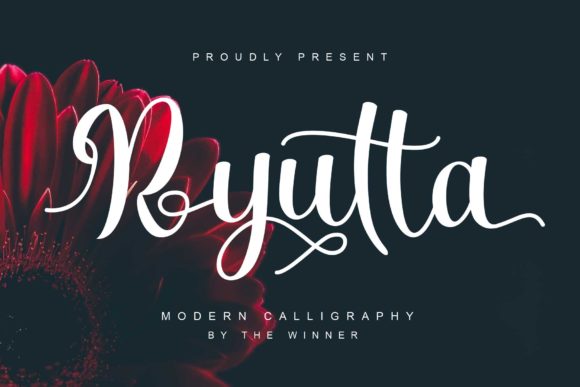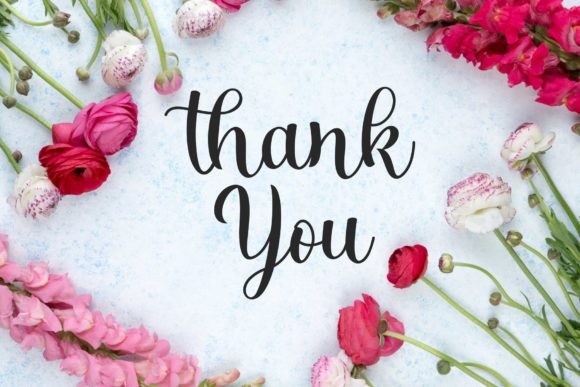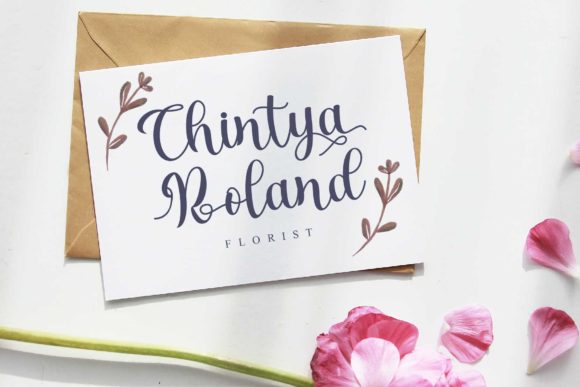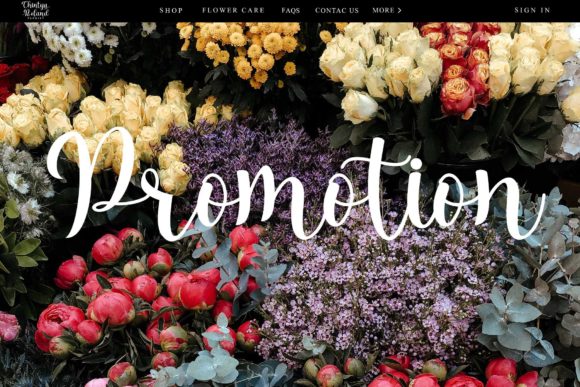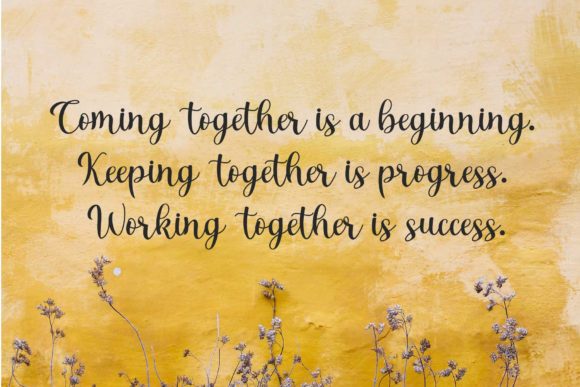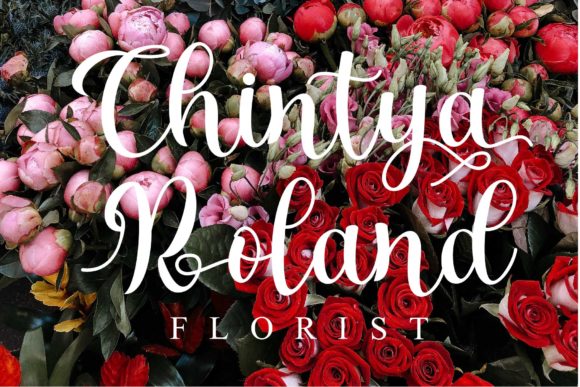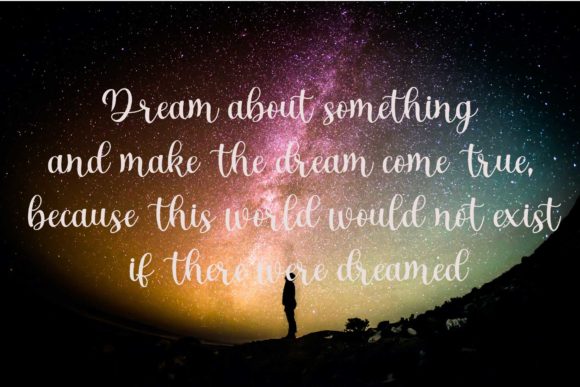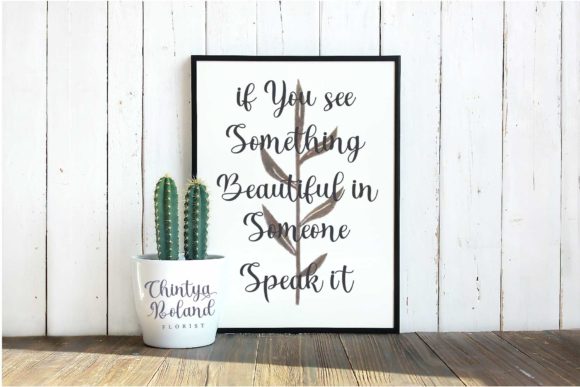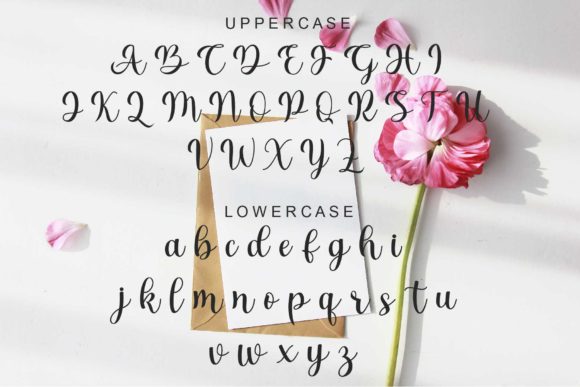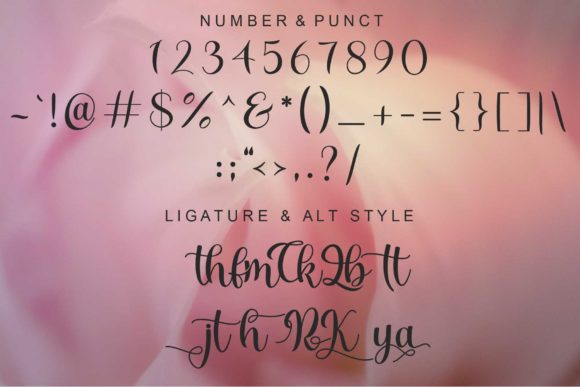
Ryutta Font
About Ryutta Font
Ryutta is a captivating and enchanting handwritten font that adds a touch of elegance and romance to any design. With its versatile script style, this font offers a wide range of applications, making it a valuable asset for various projects.
The beauty of Ryutta lies in its ability to evoke a romantic feel. The fluid and graceful strokes of the letters create an enchanting visual appeal, capturing the essence of handwritten calligraphy. Whether you’re designing a greeting card, a headline, or any other creative project, Ryutta will infuse it with a sense of elegance and charm.
One of the notable features of Ryutta is its versatility. The font can be applied to various design contexts, allowing you to explore different creative possibilities. Its graceful script is perfect for greeting cards, adding a personal and heartfelt touch to your messages. It can also be used for headlines, capturing attention and creating a captivating visual impact.
With Ryutta, you have access to a wide range of beautiful glyphs and swashes. These additional characters and decorative elements give you the flexibility to customize and embellish your designs, making them unique and visually appealing. The PUA encoding ensures easy access to these special glyphs and swashes, allowing you to enhance your creations effortlessly.
Whether you’re working on wedding invitations, branding materials, social media posts, or any other design project that requires a romantic touch, Ryutta is a font that can elevate your work. Its enchanting style and versatility make it a valuable resource for designers who seek to add a touch of elegance and romance to their creations.
In summary, Ryutta is an enchanting handwritten font that adds a romantic feel to your designs. Its versatile script style lends itself well to various applications, from greeting cards to headlines. With its beautiful glyphs and swashes, Ryutta offers customization options, allowing you to create unique and visually appealing designs. Embrace the elegance and charm of Ryutta in your next project and let it captivate your audience.